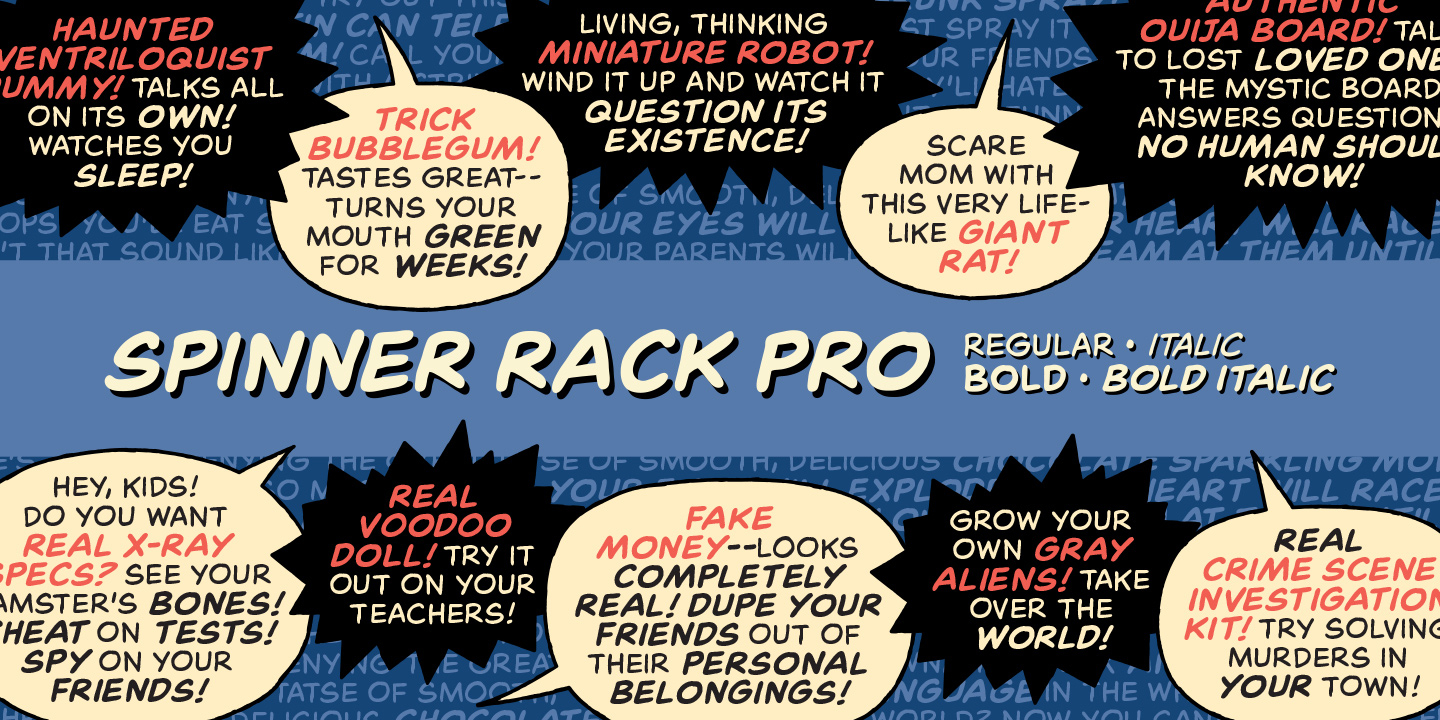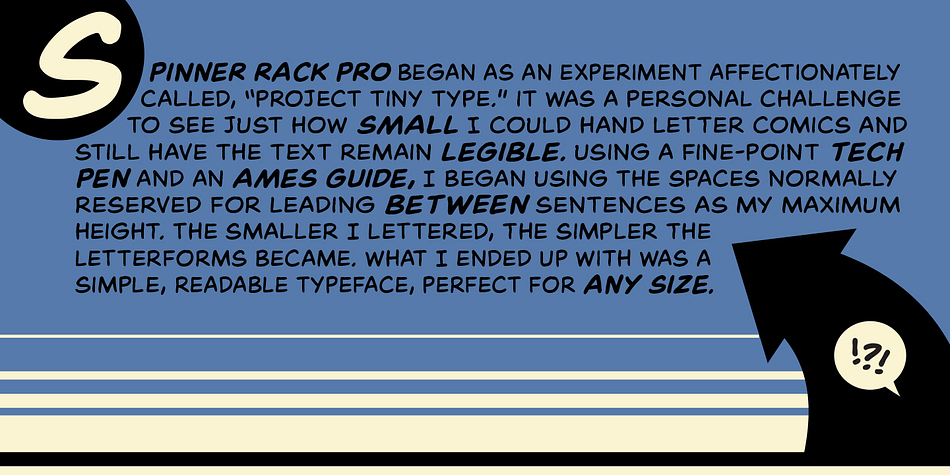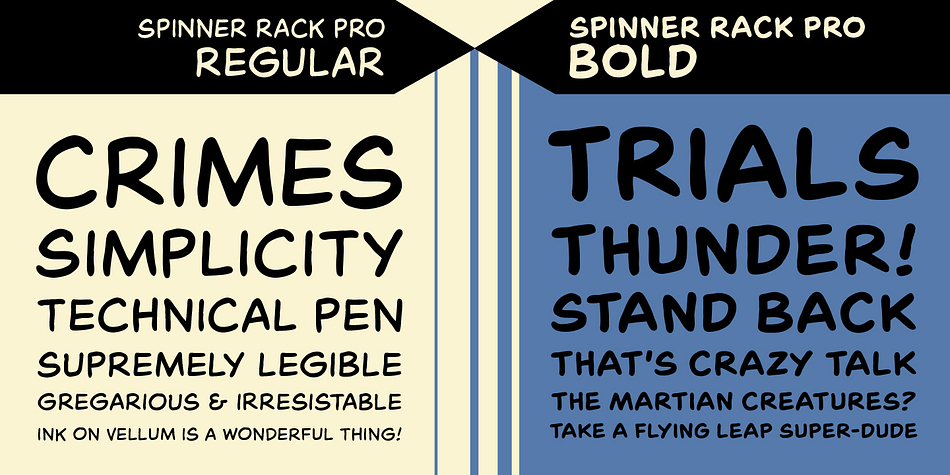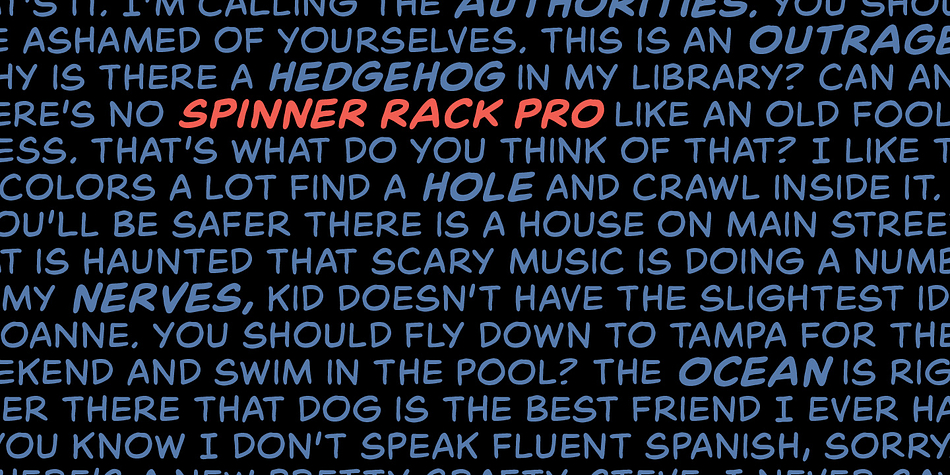
Spinner Rack Pro BB
Designed by Nate Piekos, Spinner Rack Pro BB is a comic font family. This typeface has four styles and was published by Blambot.
Spinner Rack Pro BB is a new and improved version of the classic Blambot typeface, Spinner Rack BB! New spacing, kerning, manga characters, barred-I correction, additional accented characters, autoligatures, contextual alternates, and a plain bold weight for the first time!